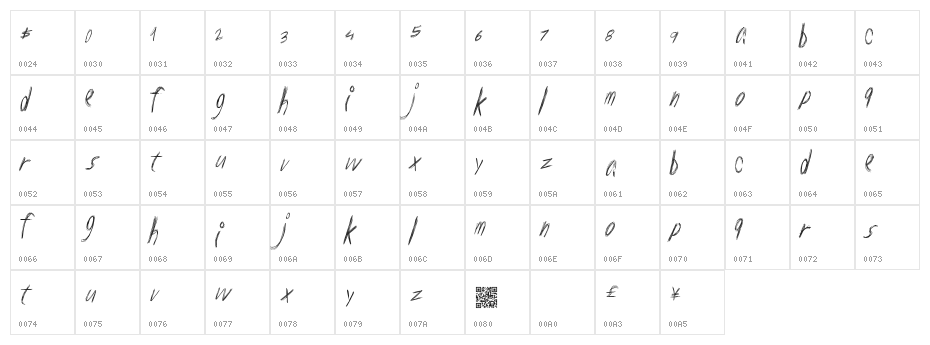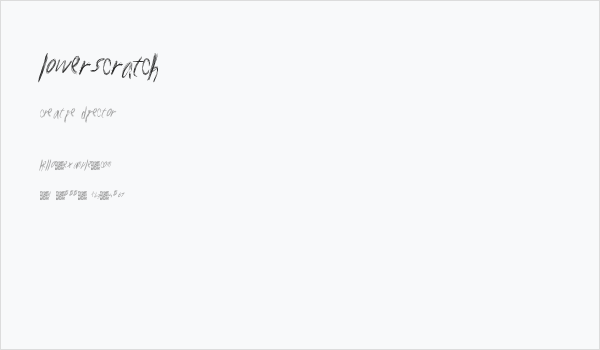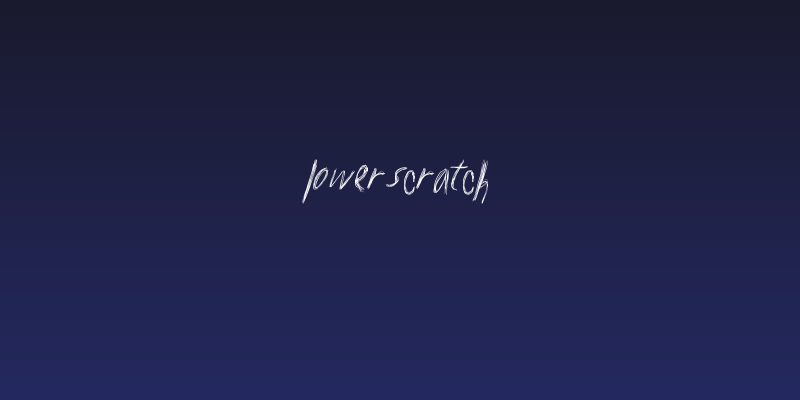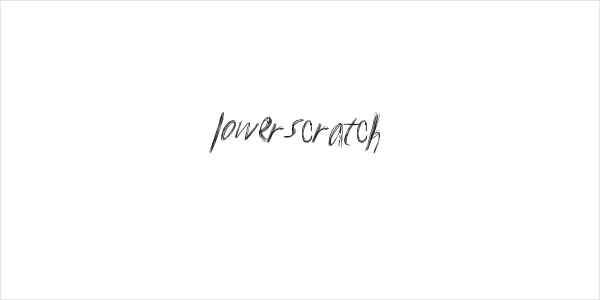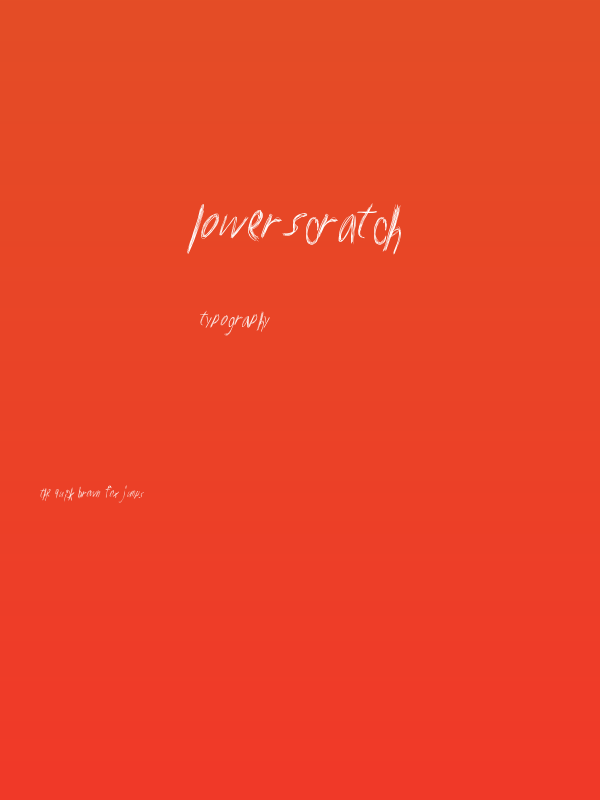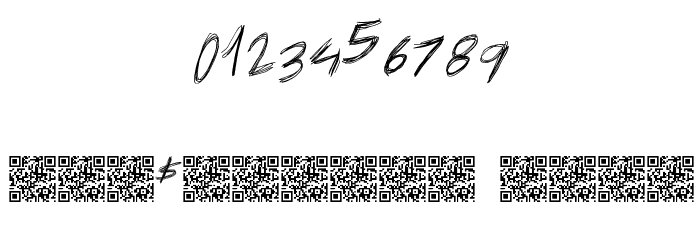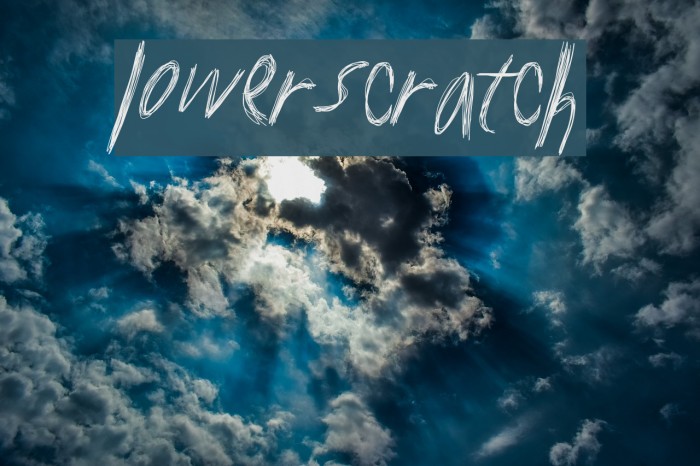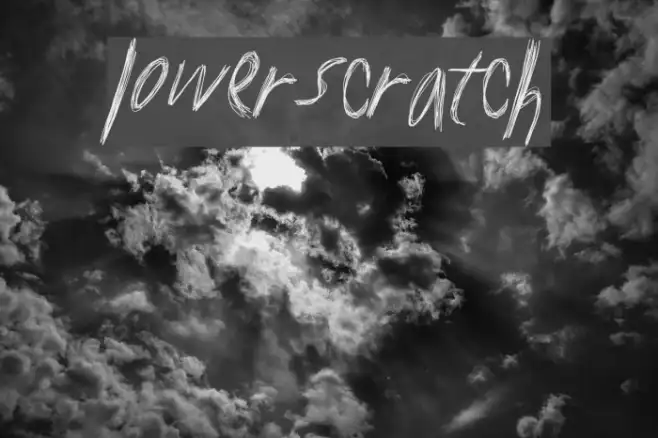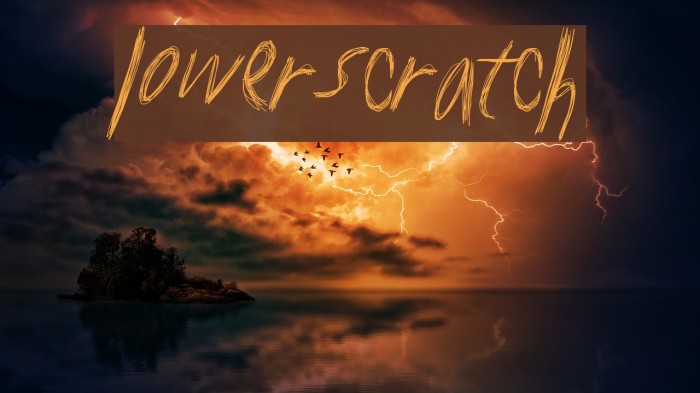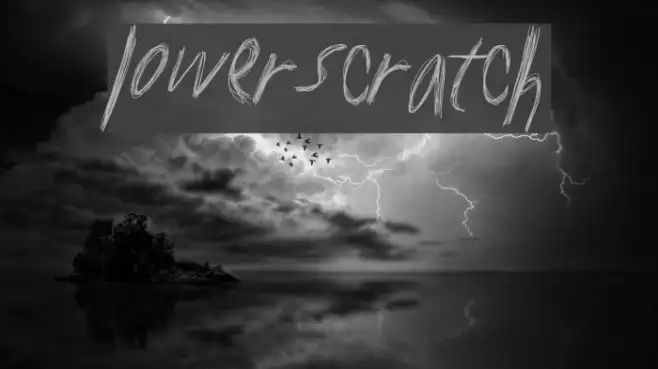
LowerScratch Font
LowerScratch Description
This font features a dynamic and edgy style, characterized by its scratchy, hand-drawn appearance. The letters are irregular and slightly tilted, giving a sense of movement and energy. The strokes are uneven, with a sketch-like quality that adds a raw and artistic feel. This font is perfect for projects that require a touch of creativity and individuality. The characters are distinct and easily recognizable, making it suitable for attention-grabbing designs. Its unique style can add a personal and informal touch to any project.
LOWERSCRATCH UPPERCASE
LOWERSCRATCH LOWERCASE
LOWERSCRATCH OTHER CHARS
| Overall Style | Artistic |
| Proposed Projects | Ideal for creative projects, album covers, posters, and artistic branding. |